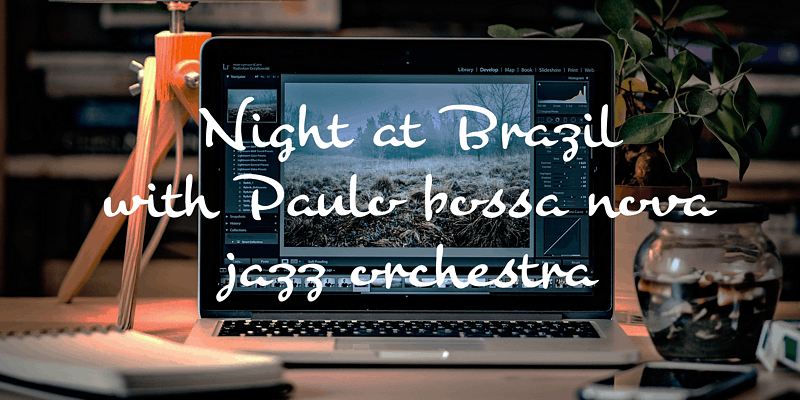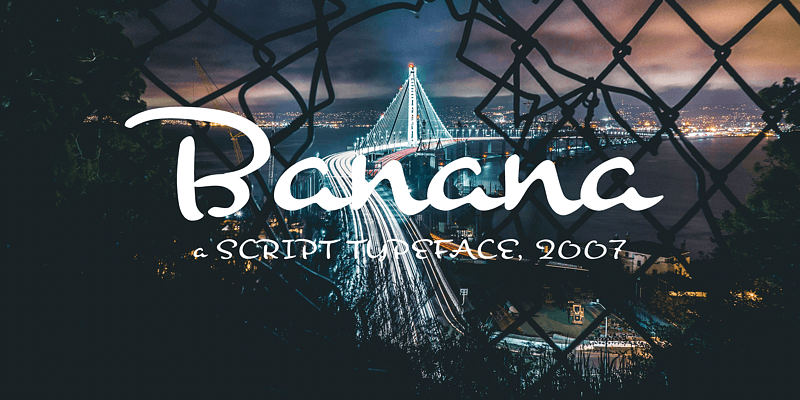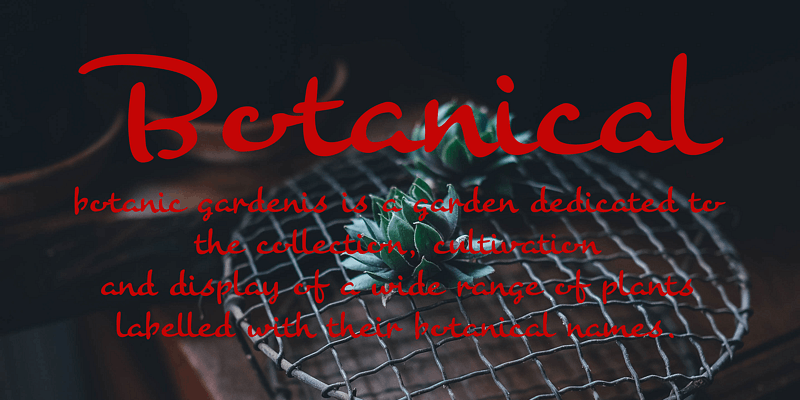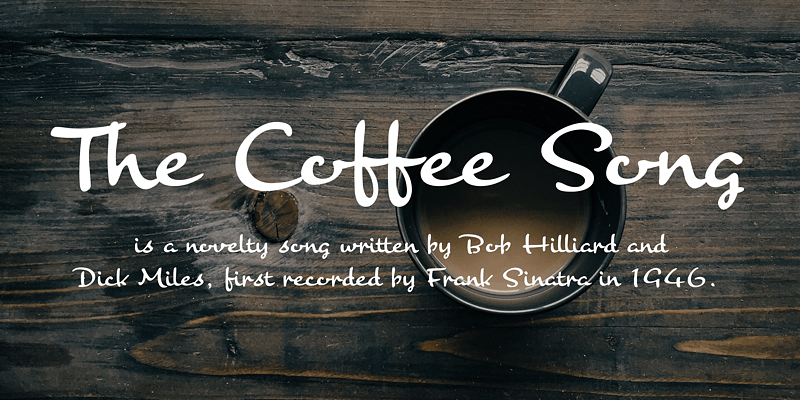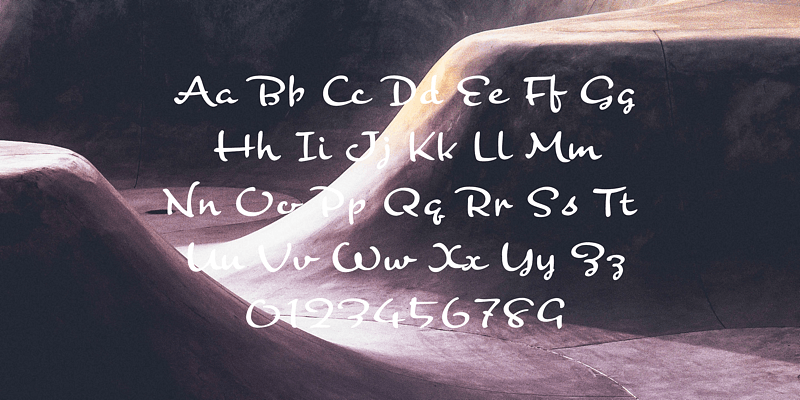
Banana is a modern urban script. Very impressive by its heavy and rounded shape. Upright stems and wide width of their shape gives easy and slow impression.